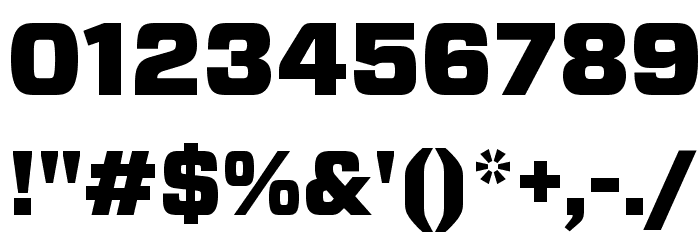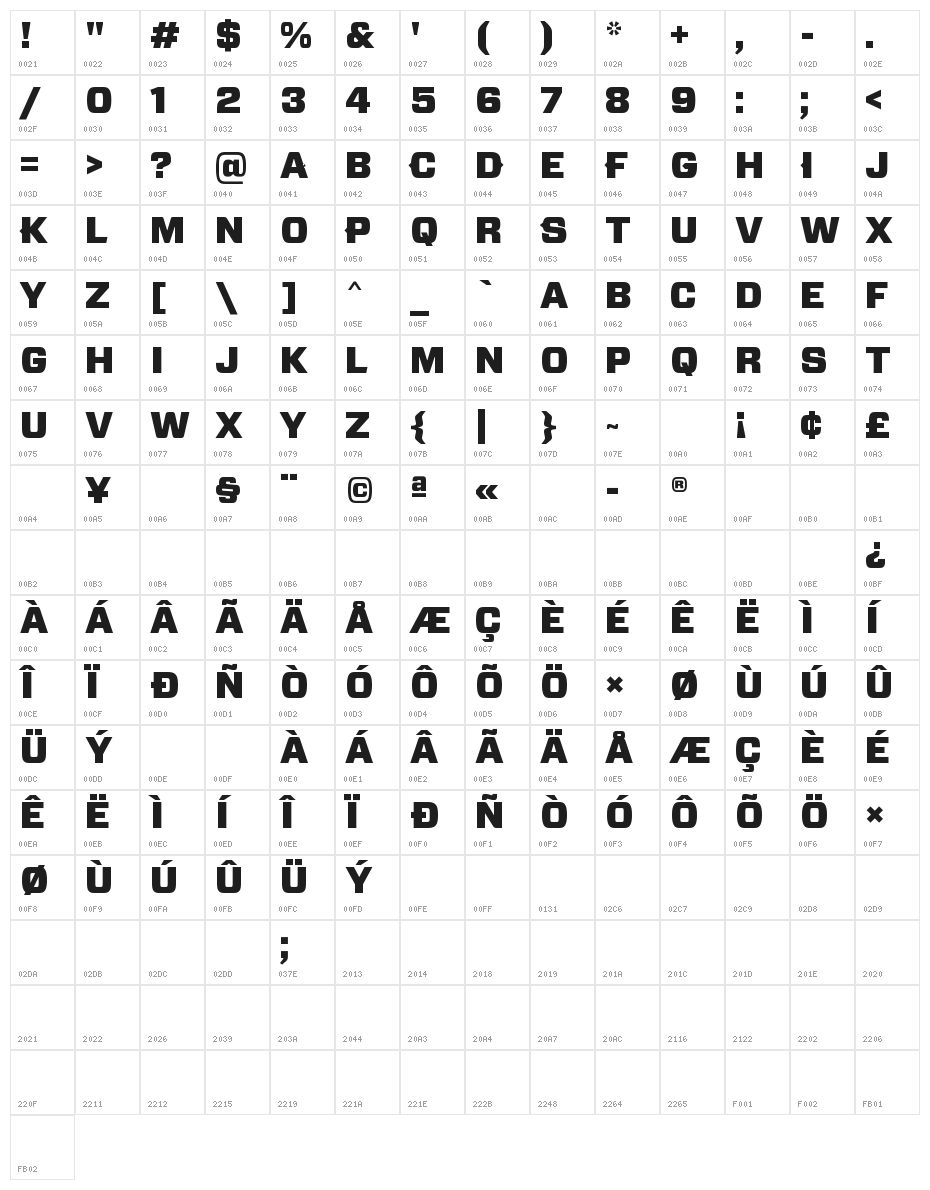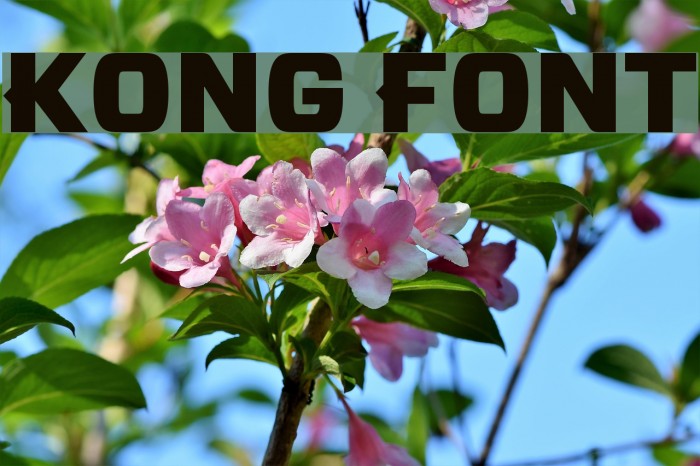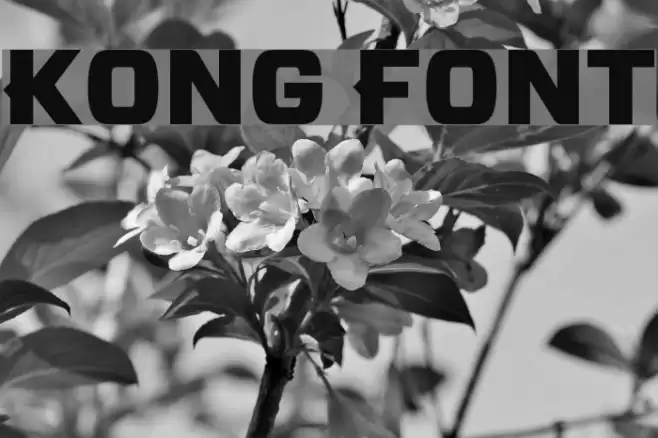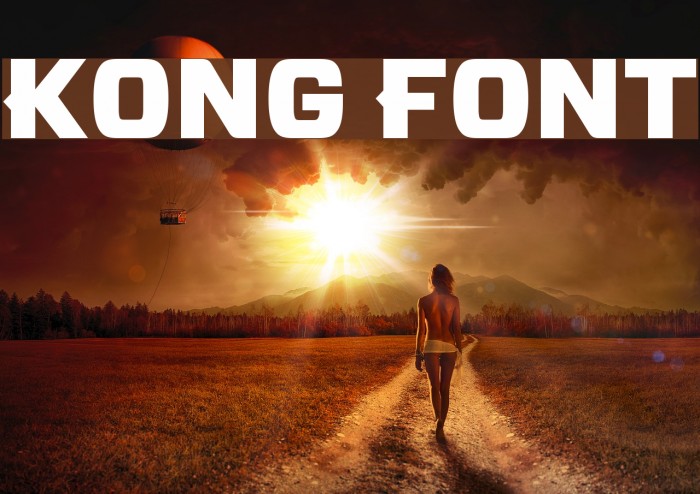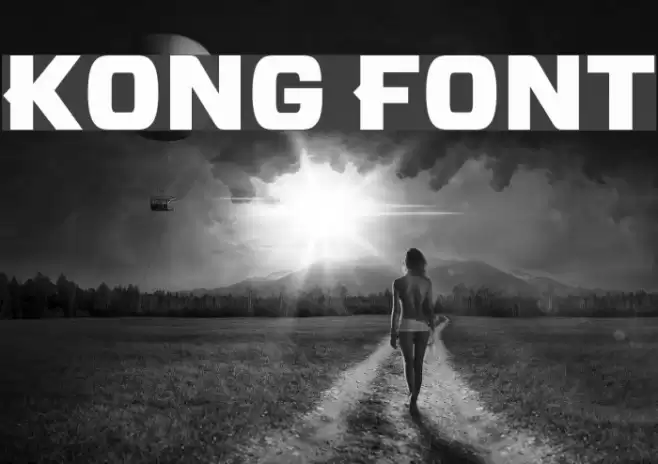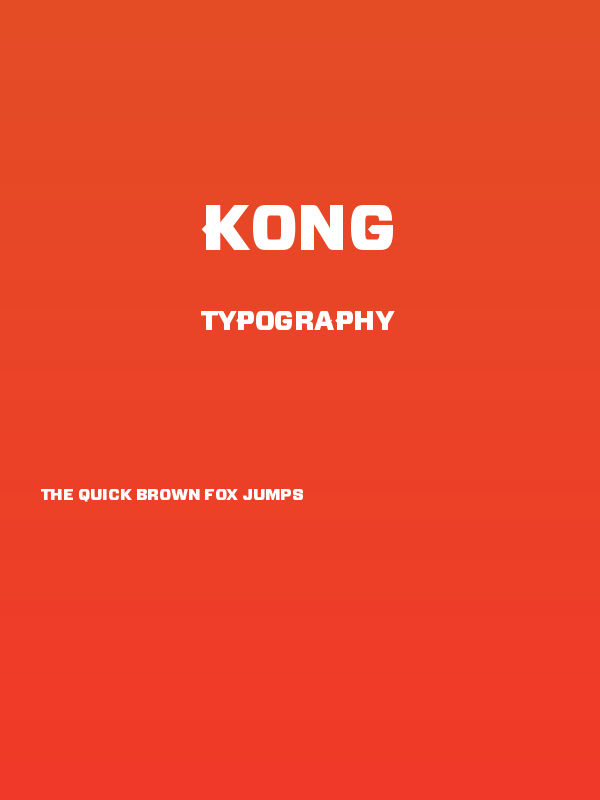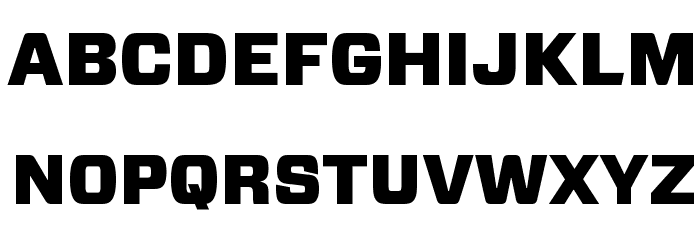
Kong Font
Kong Description
This font is characterized by its bold and impactful design, featuring thick, solid strokes that convey strength and assertiveness. The uppercase letters are particularly striking, with a uniform height and width that create a cohesive and balanced appearance. The numbers and special characters maintain this boldness, ensuring consistency across all elements. The font's design is modern and clean, making it suitable for a variety of applications where a strong visual presence is desired. Its geometric shapes and even spacing contribute to its readability and versatility.